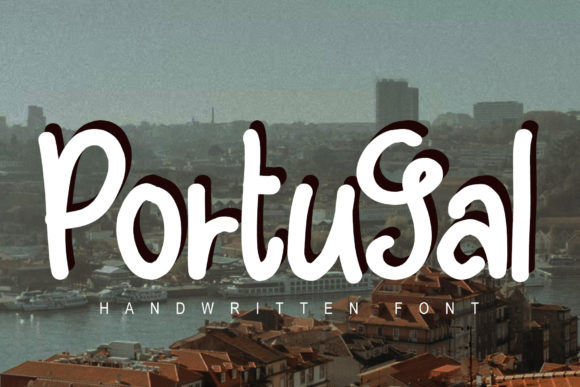
Feast your eyes on Portugal Font, a captivating handwritten font that dances with charm and elegance. Created by the talented Ansart, this script font is a visual masterpiece that transforms your designs into works of art. Whether you're crafting wedding invitations, thank-you cards, or heartfelt quotes, Portugal Font adds a touch of warmth and sincerity to every letter.
Imagine your designs adorned with Portugal Font's graceful strokes, each character flowing into the next with effortless beauty. Its playful personality adds a touch of whimsy to logos and business cards, making your brand stand out from the crowd. Portugal Font is more than just a font; it's an expression of creativity and individuality. Let your designs flourish with its enchanting presence.
Dive into the world of app design and let Portugal Font guide you. Its easy-to-read nature and inviting curves make it the perfect choice for user interfaces, captivating your audience with every click and scroll. Portugal Font breathes life into your digital creations, making them more engaging and memorable.
With Portugal Font as your creative companion, the possibilities are endless. Explore the realm of greeting cards, where heartfelt messages take on new meaning. Its enchanting style adds a personal touch, making each card a cherished keepsake. Unleash your creativity and let Portugal Font transform your designs into visual masterpieces.